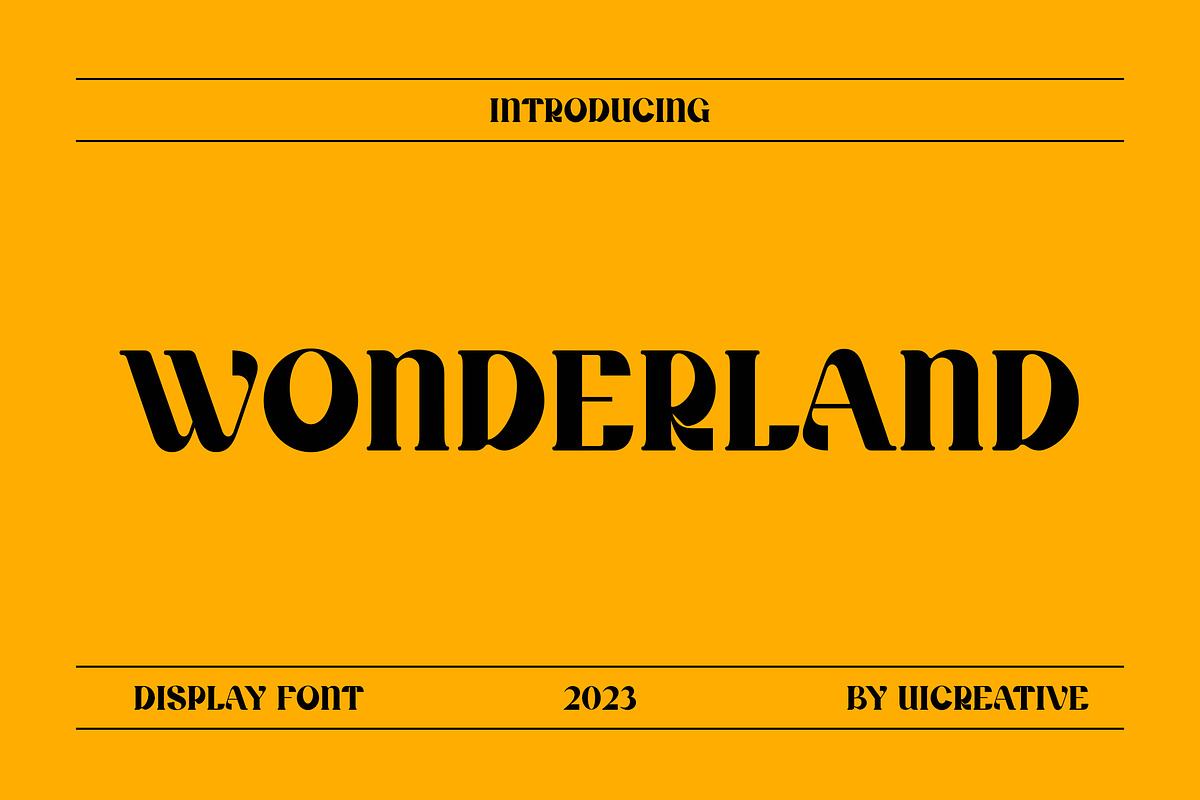
Please note, to use this font for commercial purposes, you must purchase the full version. Wonderland is a whimsical and eye-catching display font designed to add a magical, fairy-tale touch to your designs. With its unique letterforms and playful character, this font is perfect for creating fun logos, posters, book covers, invitations, and creative projects that need a fantastical vibe. Whether you're designing for a children's brand, a whimsical event, or a creative campaign, Wonderland adds a charming and imaginative feel to your work. Test it out and enjoy free download access for personal use. Experience the enchanting style of Wonderland Display Font Free Download before purchasing the commercial license. Add a magical, fun touch to your designs with Wonderland.